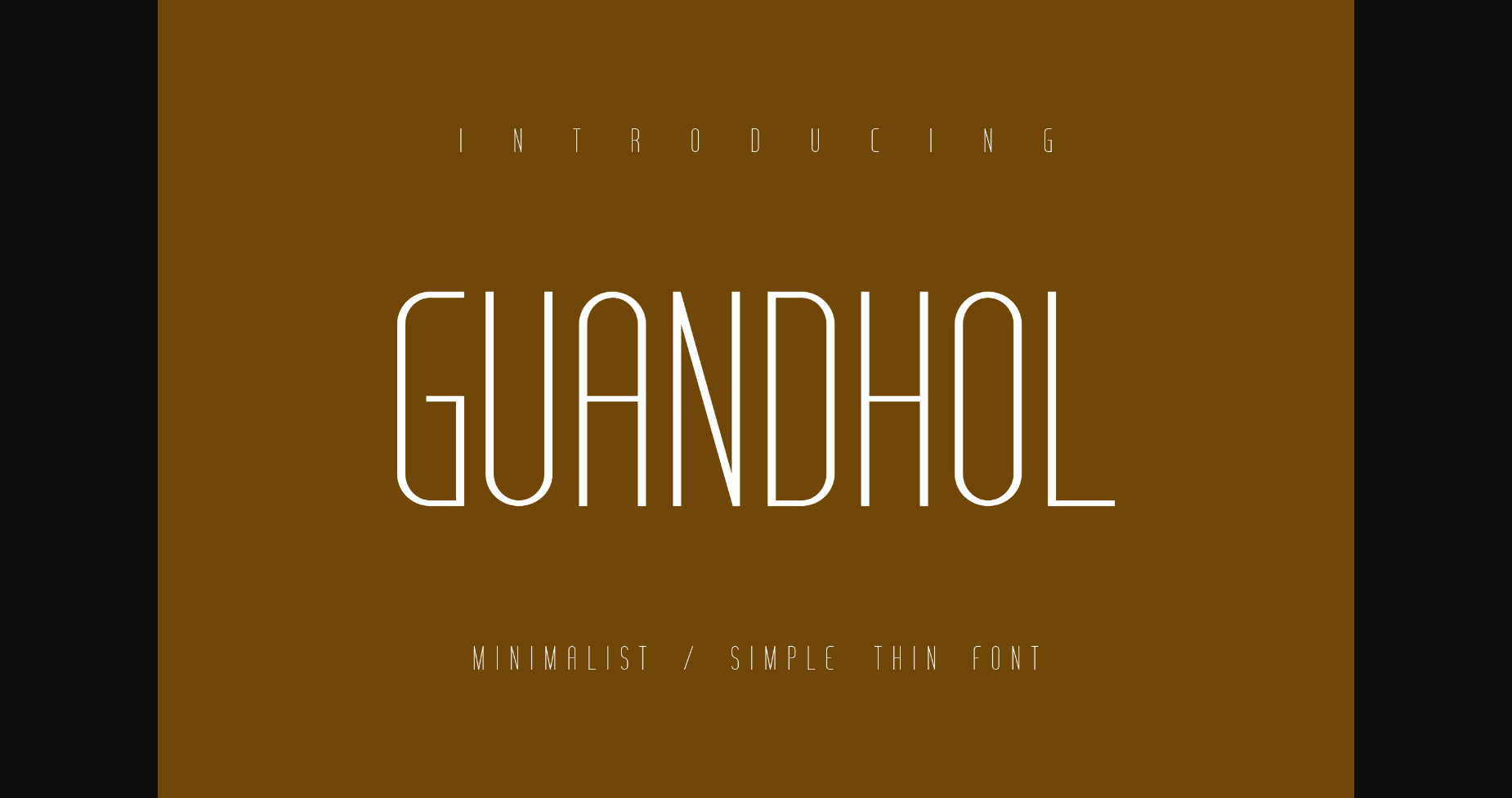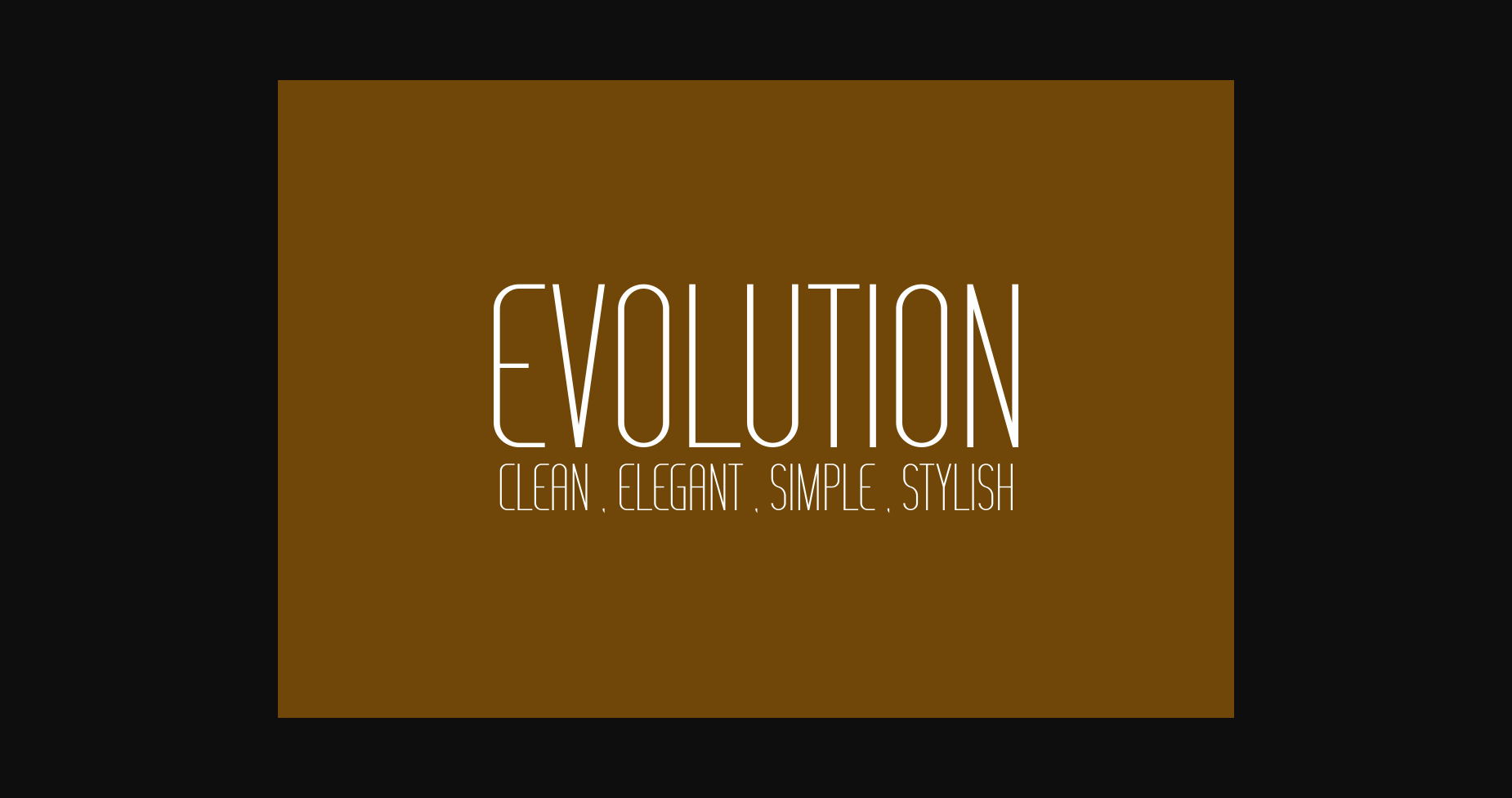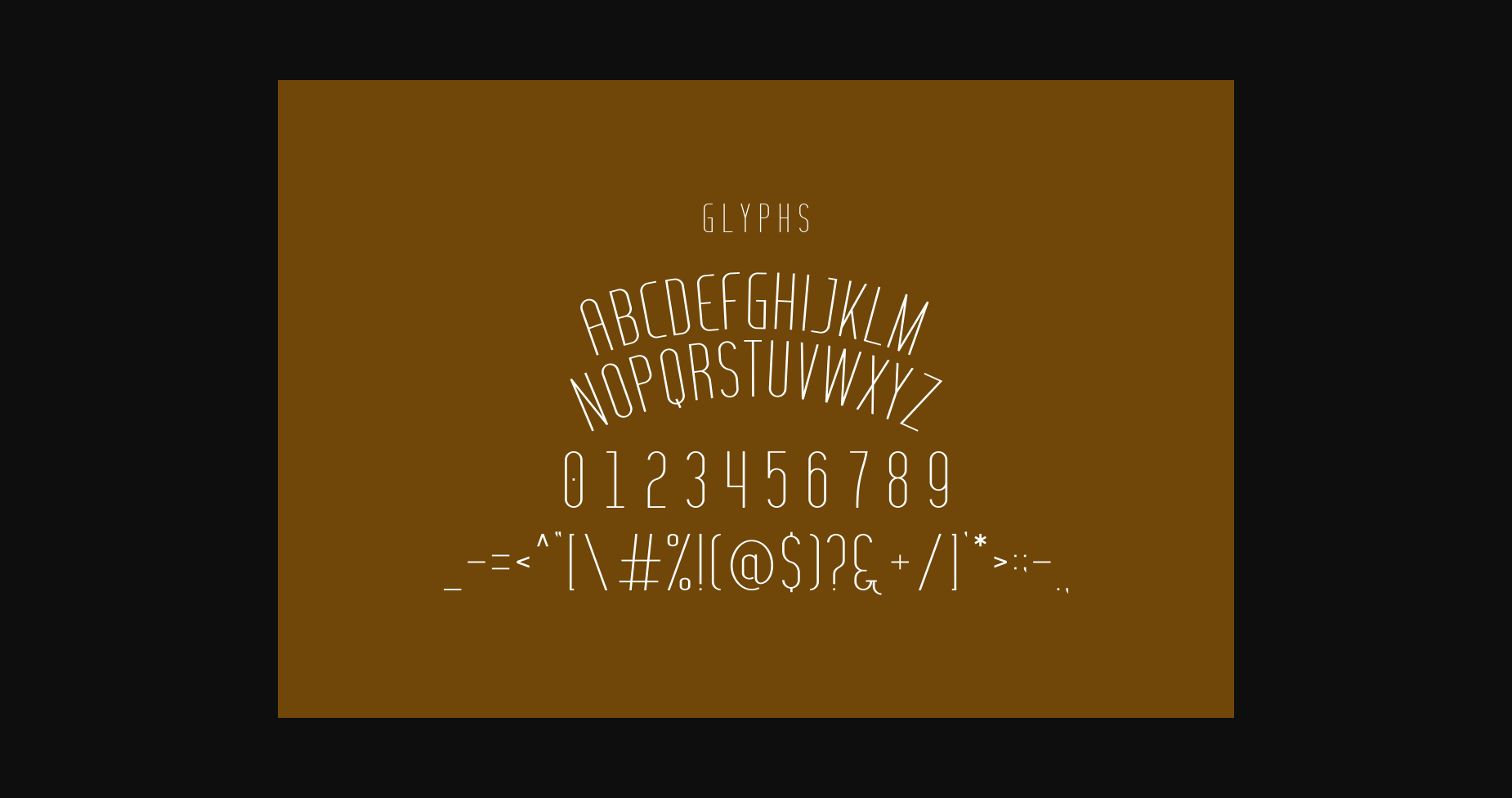
Guandhol Font
About Guandhol Font
Guandhol Lite is an impactful and thin sans-serif font that’s perfect for creating a modern and minimalistic look. The letters are clean and sharp, with a sleek appearance that gives it a strong and contemporary edge. This font is perfect for anything from logos to headlines that require a bold and impactful design.